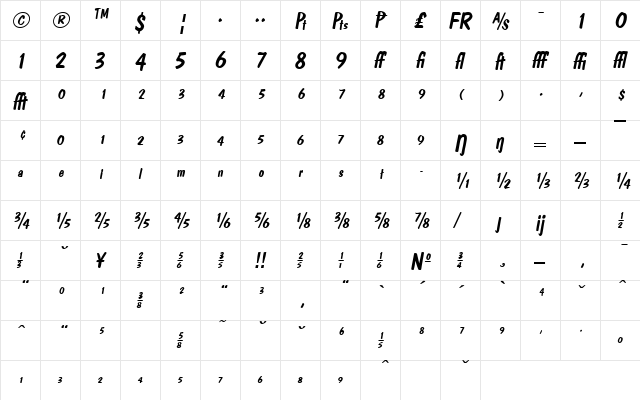
PedroExp Italic
Design Context for PedroExp Typeface
PedroExp is a composed and adaptable typeface that performs quietly and consistently across a wide range of design contexts. The dynamic lean of this cut emphasises speed and emphasis in any layout.
Pro Tip: Use PedroExp for emphasis, pull quotes, and subheadings where its slanted energy can add rhythm to the layout.